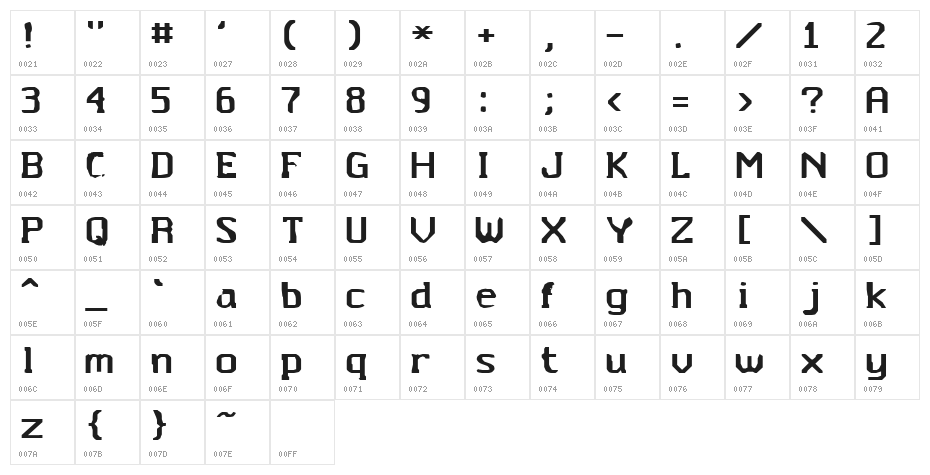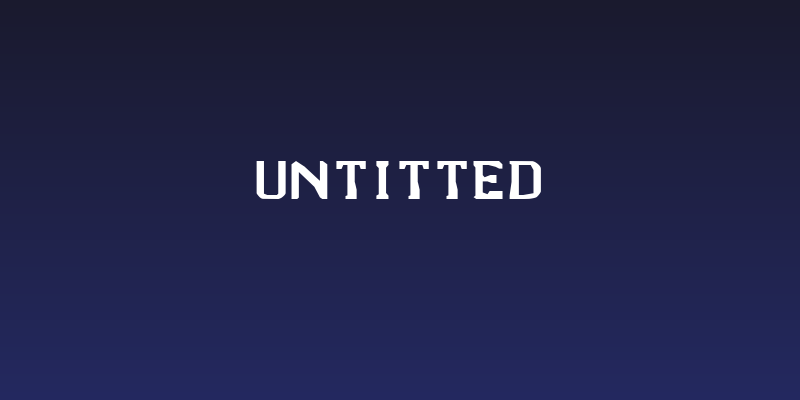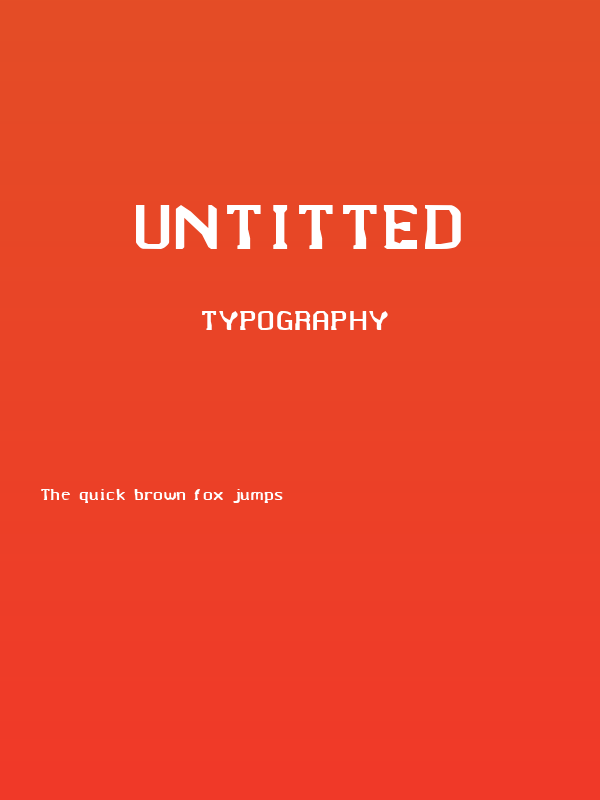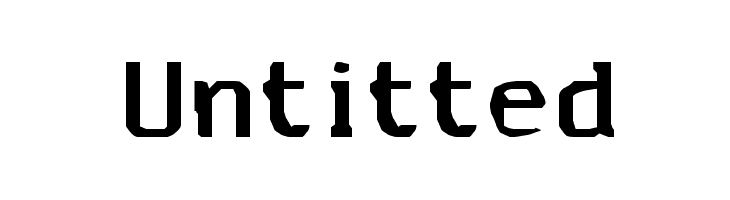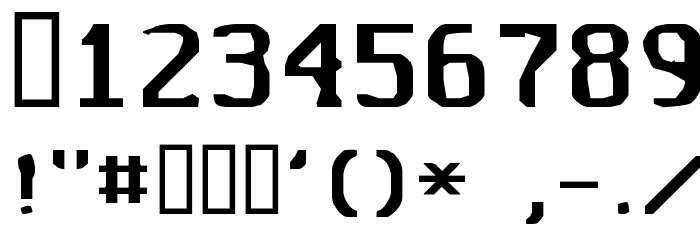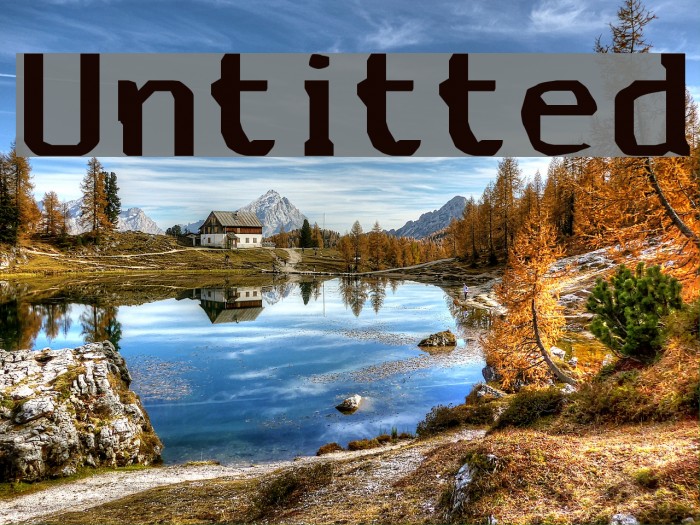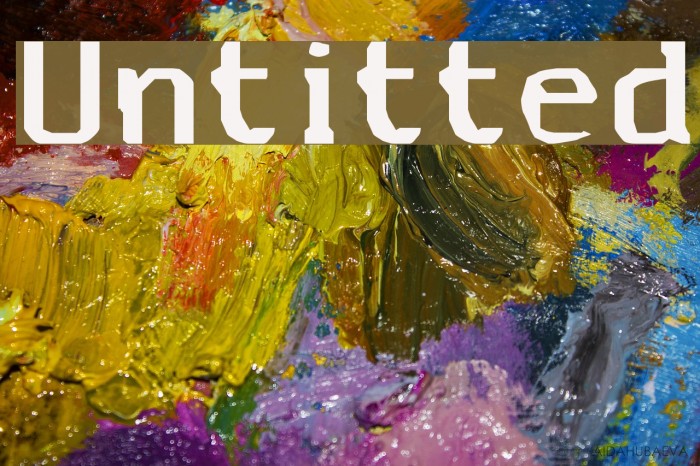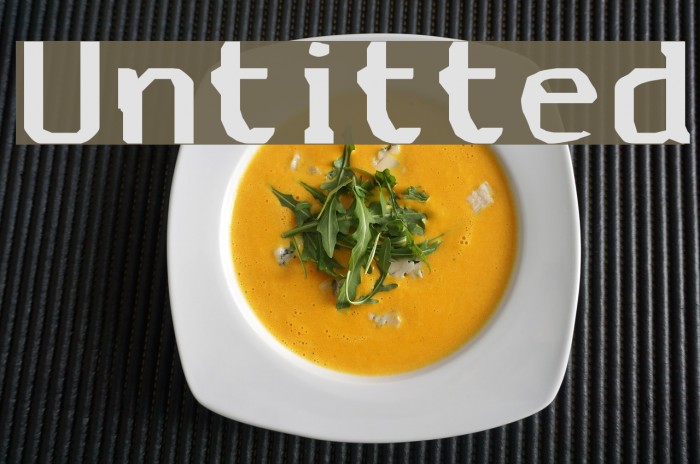
Untitted Font
Untitted Description
This font features a bold and rugged design with a distinctly industrial feel. The characters are constructed with sharp, angular edges and a slightly distressed appearance, giving it a unique, worn look. The uppercase letters are tall and commanding, while the lowercase letters maintain a consistent style with slightly rounded edges. The numerals are bold and match the overall aesthetic, providing a cohesive look across all characters. Special characters are included, maintaining the same bold and industrial style. This font is perfect for projects that require a strong, impactful presence.
| Overall Style | Industrial, Rugged |
| Proposed Projects | Ideal for branding, posters, signage, and any project needing a strong, industrial aesthetic. |